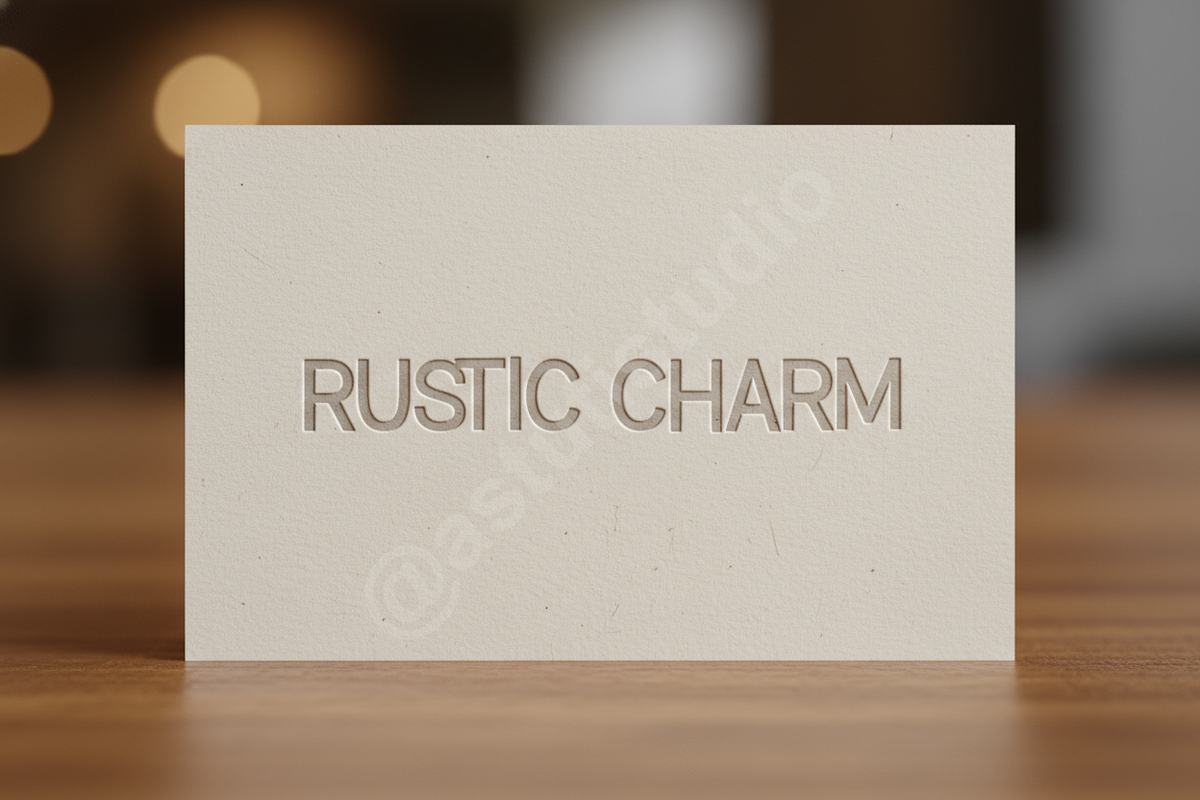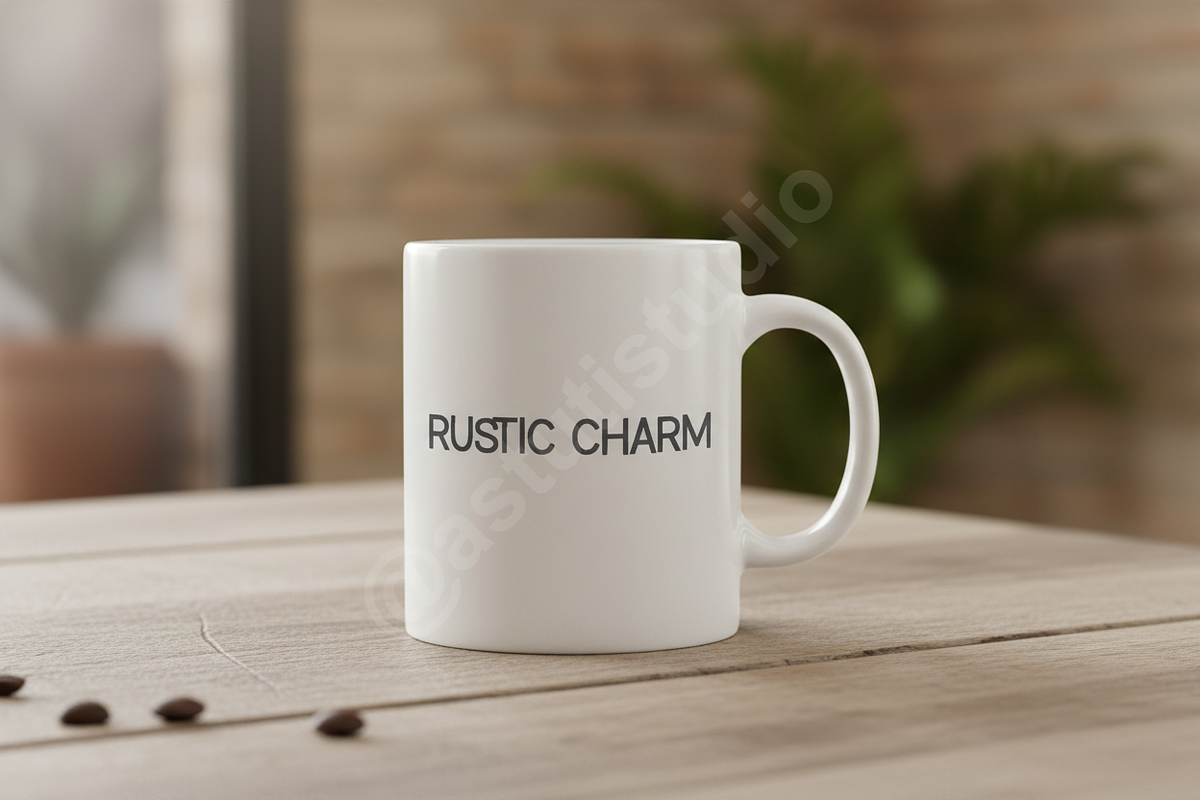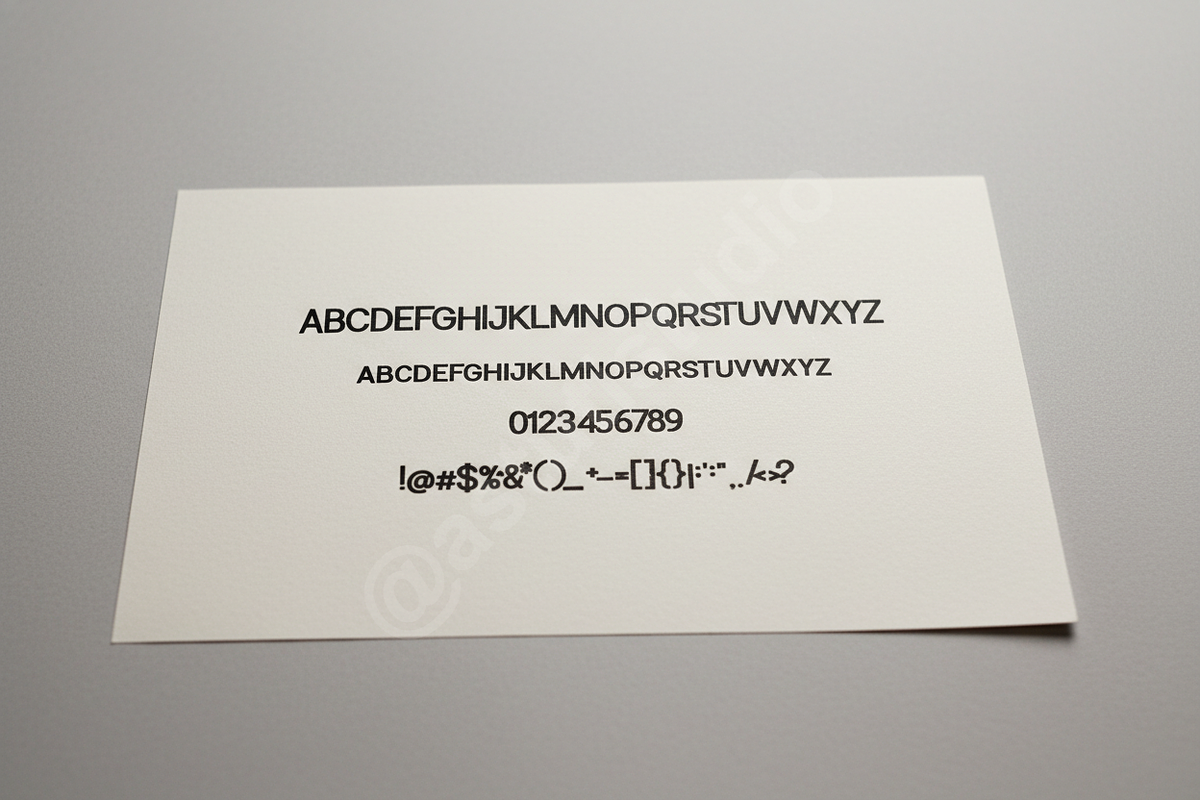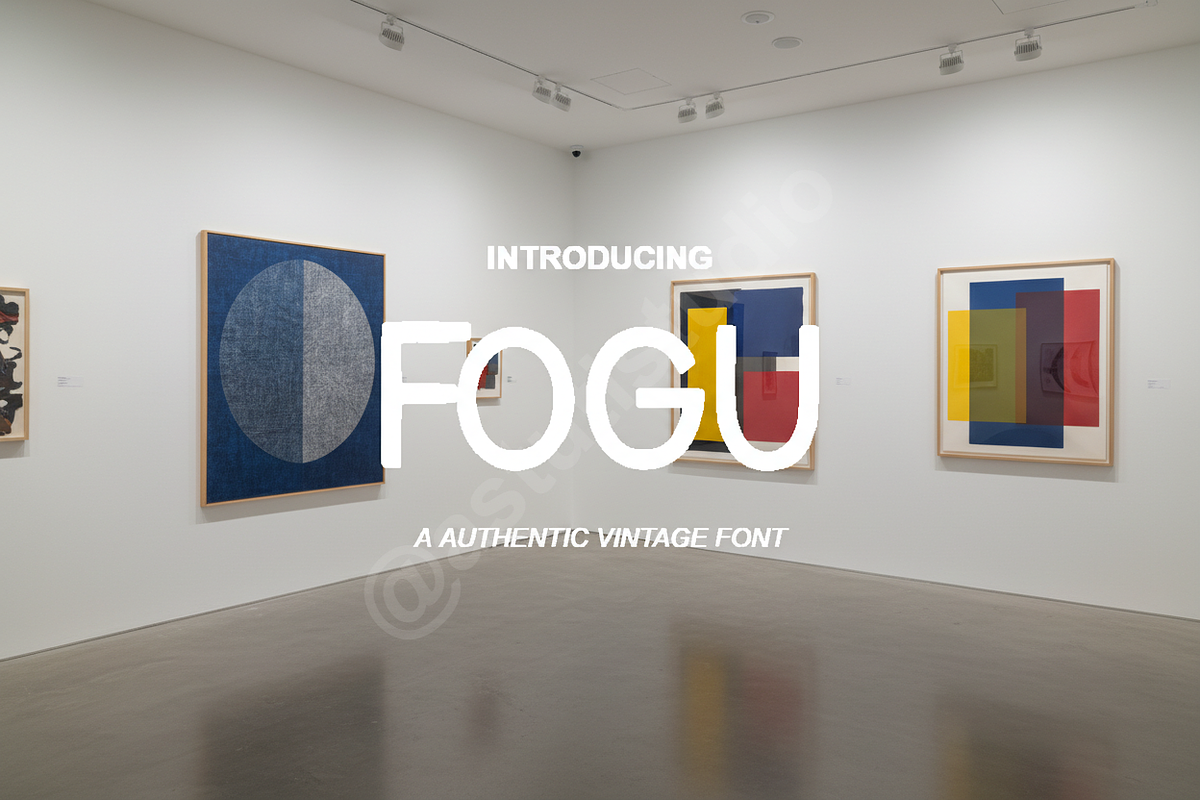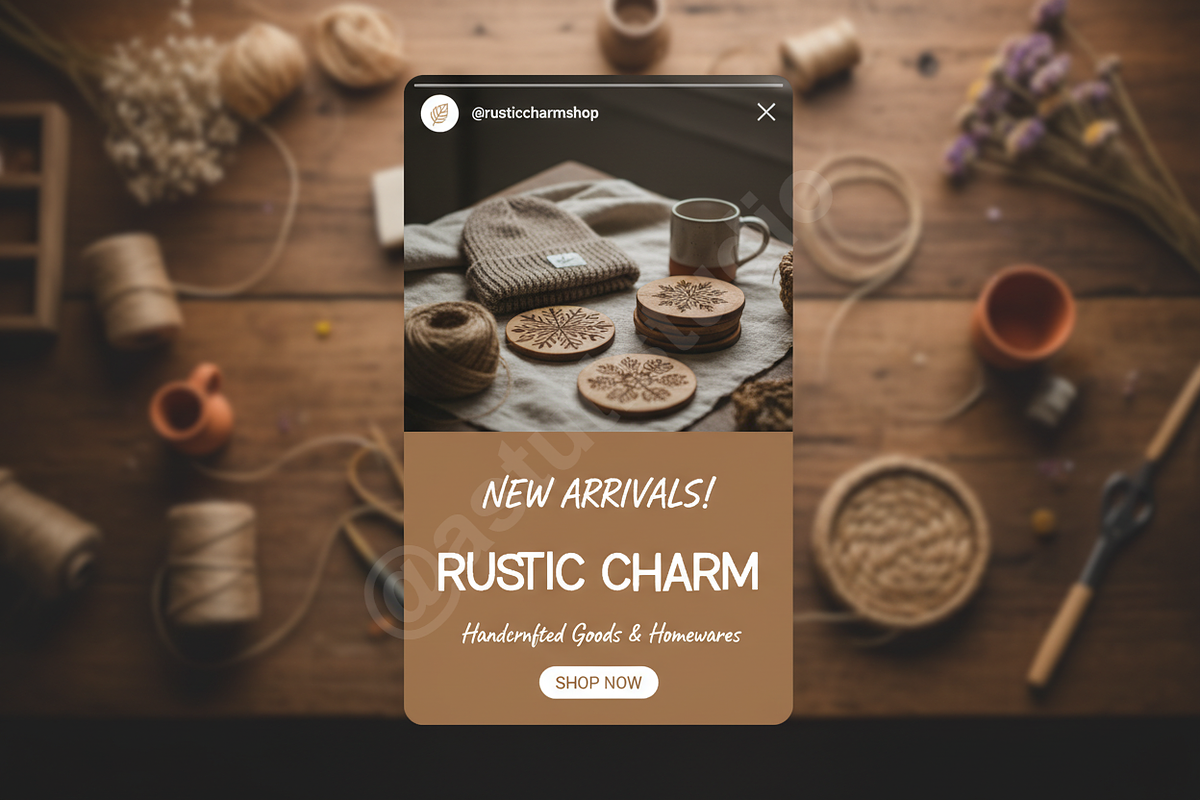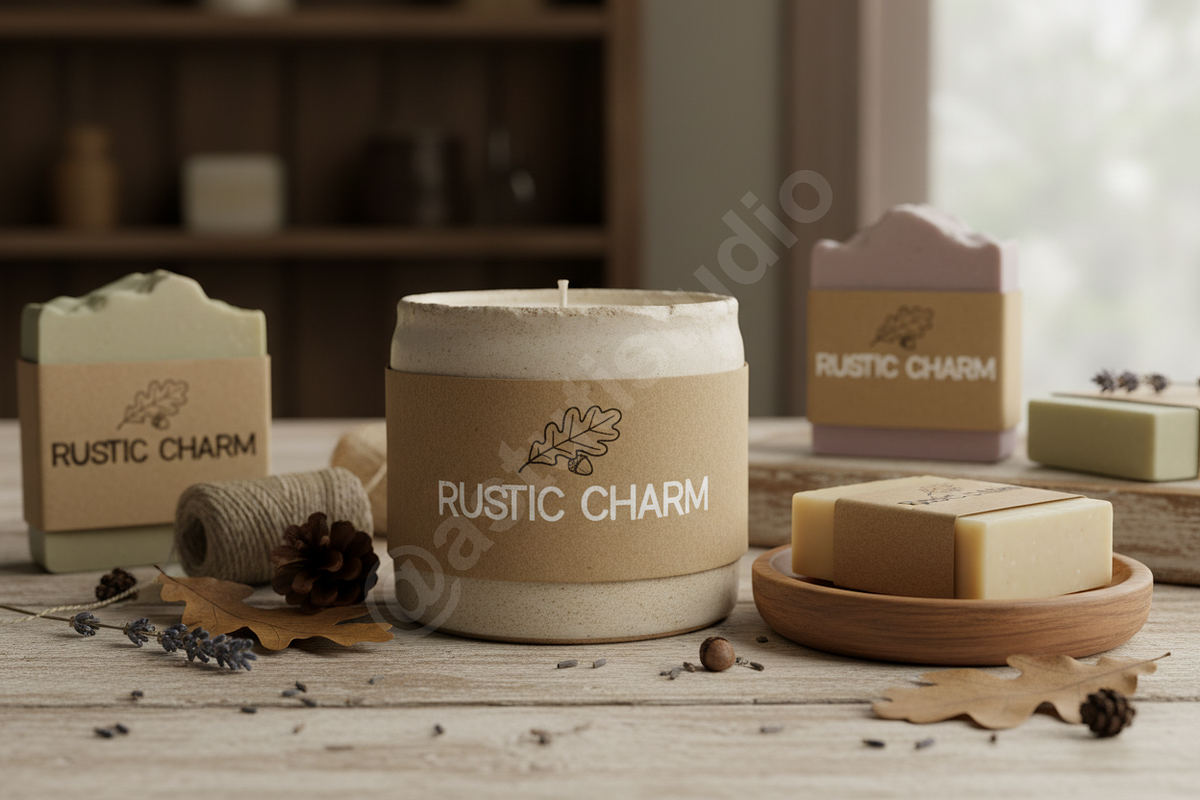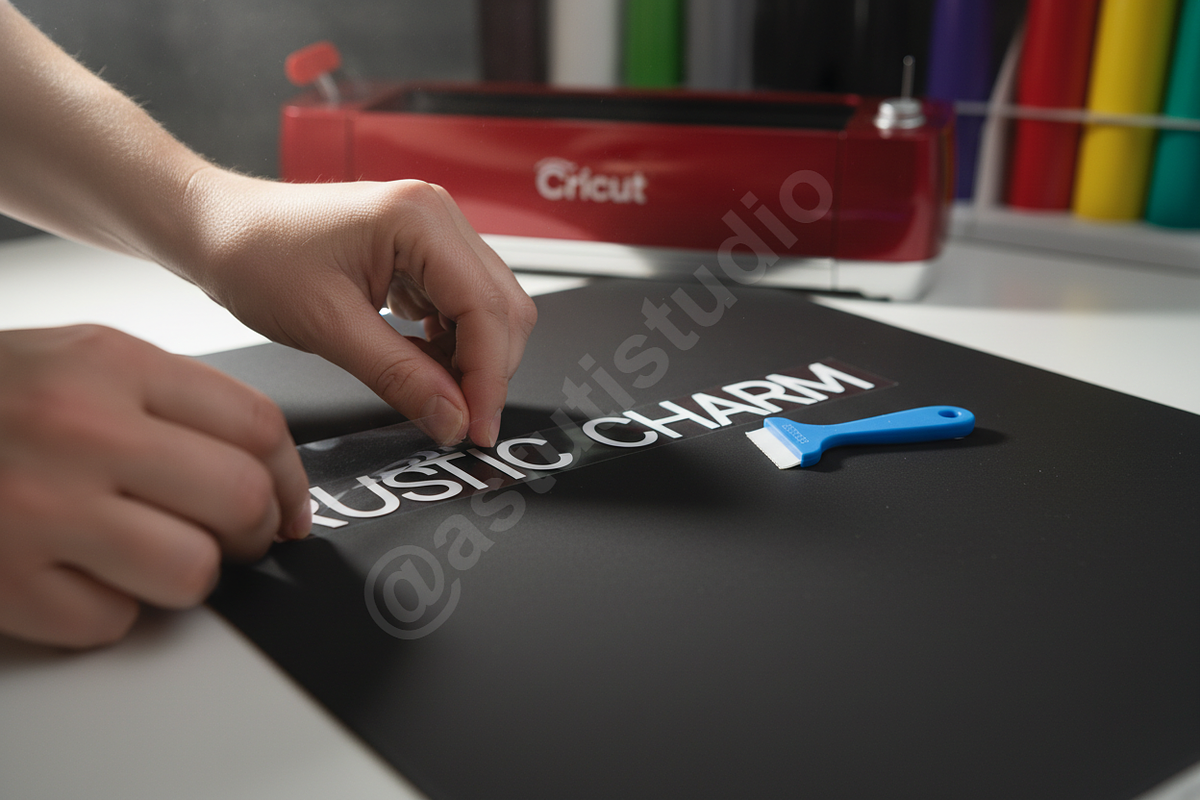
Fogu - Elegant Modern Sans Serif Fon
Introducing Fogu, an exquisite sans-serif typeface designed for sophistication and timeless elegance. Fogu embodies a refined aesthetic, meticulously crafted to elevate your design projects. Its clean lines and balanced proportions make it the perfect choice for luxury branding, high-end editorial layouts, and captivating social media presence. Experience the blend of modern versatility and classic charm that Fogu brings to every application.
- Elegant & Modern Sans-Serif Design
- Perfect for Luxury Branding, Editorial, & Social Media
- Uppercase & Lowercase Characters
- Standard Ligatures & Stylistic Alternates
- Extensive Multilingual Support